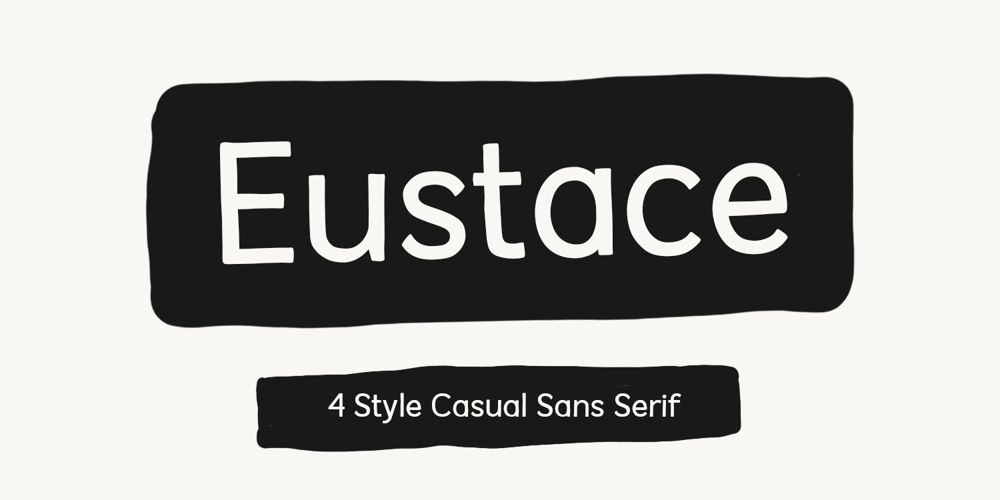
Eustace Font Family was designed by Agam Rahmadan and published by Viswell. Eustace contains 4 styles and family package options. Eustace is font that brings a fresh and playful touch to your designs. As a casual sans serif font with a hand-drawn style, Eustace offers unique characteristics that are easy to read and capture attention. Perfect for a variety of design projects such as posters, invitations, branding, and social media, Eustace adds a personal and creative touch. With four different styles—Light, Regular, Condensed, and Light Condensed—this font ensures flexibility and uniqueness in every application. Enhance the visual appeal of your work with Eustace, the perfect font for adding a friendly and engaging feel to any design.